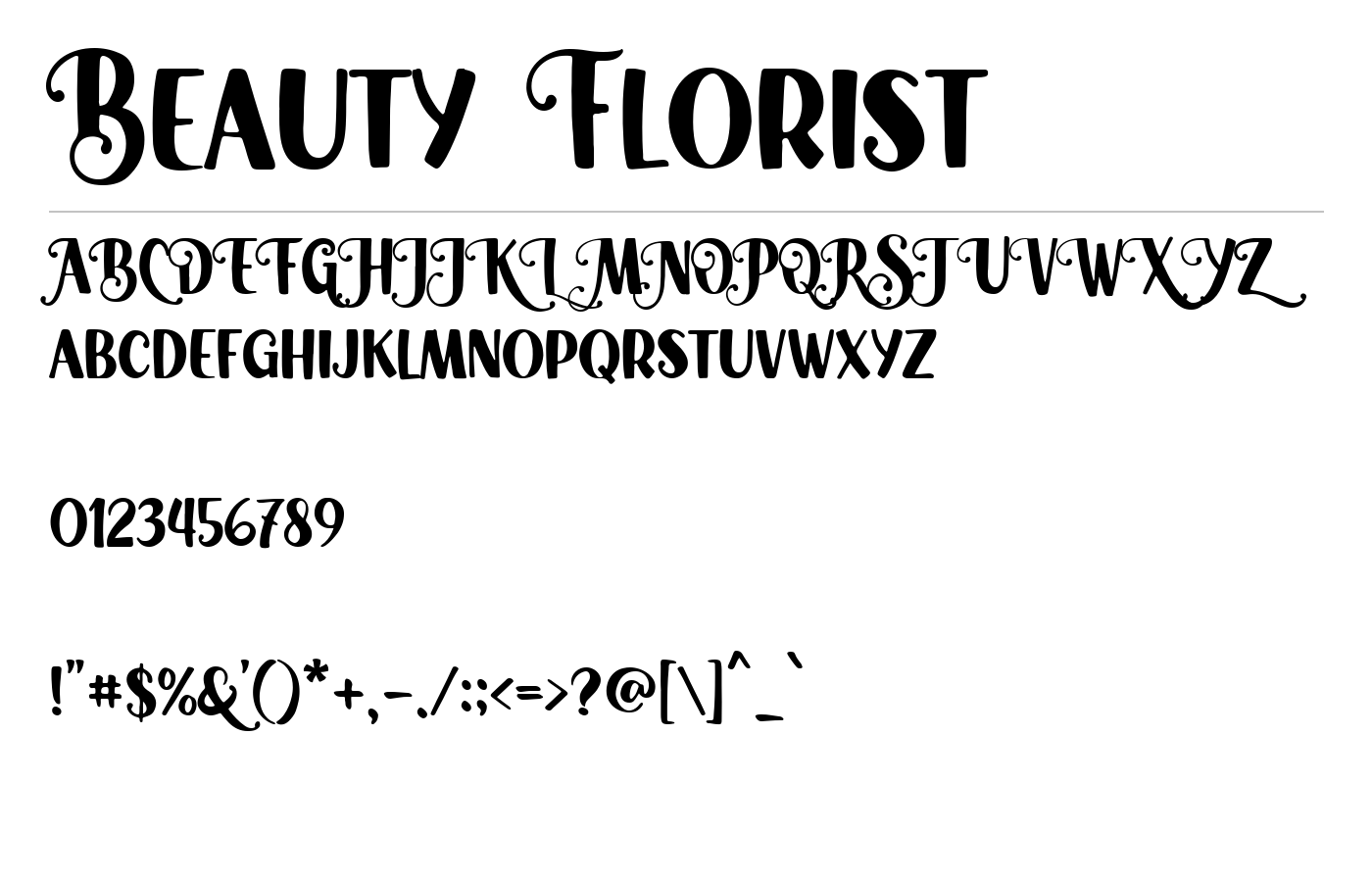
Beauty Florist is a decorative sans serif font featuring playful, whimsical characters with gentle curves and charming swirls, giving it a friendly and artistic feel. Its bold weight, moderate contrast, and unique flourishes make it perfect for branding, invitations, or any design that calls for a creative, approachable, and joyful look. This font works best in headlines and logos where personality and a touch of elegance are needed to attract attention.
Beauty Florist Font
About Beauty Florist Font
| Font family | Beauty Florist Font |